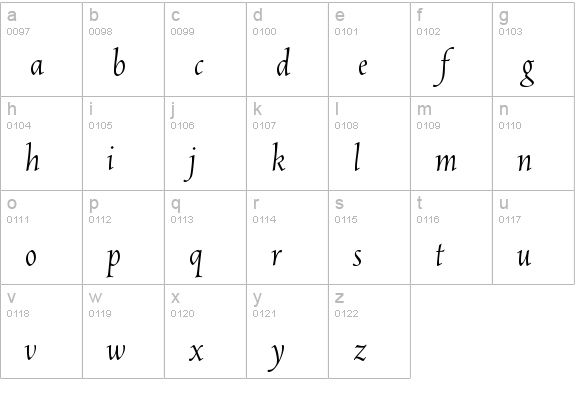
Spira-LightItalic font is an exquisite and graceful typeface that exudes elegance and sophistication. Its delicate curves and slanted letterforms add a touch of finesse to any design project. This font seamlessly blends modernity with a hint of classic charm, making it an ideal choice for various creative endeavors. With its light and airy appearance, Spira-LightItalic font brings a sense of lightness and subtlety to your designs. Its unique italicized style adds a touch of elegance and movement, making it perfect for conveying a sense of grace and sophistication in your typography. One of the best features of Spira-LightItalic font is that it is freely available to download at FontsMarket.com. This means that you have the opportunity to enhance your creative projects with this stunning typeface without any cost. Whether you are a professional designer or an aspiring creative, this font offers you the freedom to express your ideas and create visually captivating designs. Spira-LightItalic font is versatile and adaptable, making it suitable for a wide range of design applications. From editorial layouts to branding projects, from wedding invitations to product packaging, this font effortlessly adds a touch of elegance and style to any design. The smooth and flowing letterforms of Spira-LightItalic font create a harmonious rhythm that captures attention and engages the viewer. Its legibility and readability ensure that your message is conveyed with clarity, while its unique personality adds a distinctive flair to your designs. Incorporating Spira-LightItalic font into your design arsenal allows you to elevate your creative projects to new heights. Its timeless appeal and captivating aesthetics make it a valuable asset for any designer. So why wait? Experience the beauty and versatility of Spira-LightItalic font by downloading it for free at FontsMarket.com and let your creativity soar.